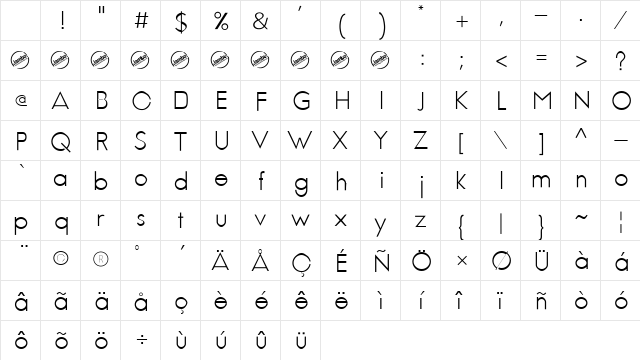
Complete Jambetica Light glyph index. Displaying only characters natively supported by Jambetica Light font.
Jambetica is a composed and adaptable typeface that performs quietly and consistently across a wide range of design contexts. Its slender proportions lend an understated elegance to any composition.